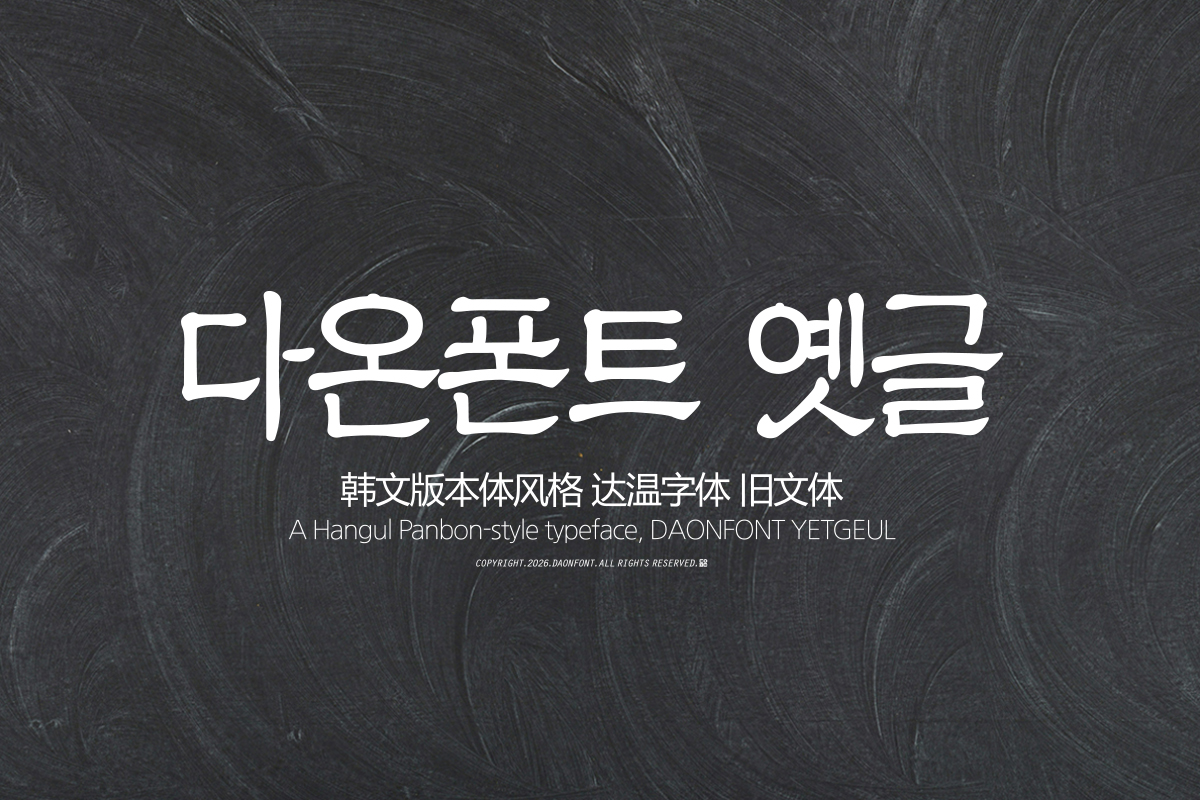
DAON YESGEUL(M)
DaonFont 'YESGEUL' is a Hangul typeface based on the framework of the Panbonche style, capturing both traditional sentiment and modern readability. The structure of the characters is stable and neat, yet not overly rigid, allowing for comfortable reading within sentences and creating a calm atmosphere.